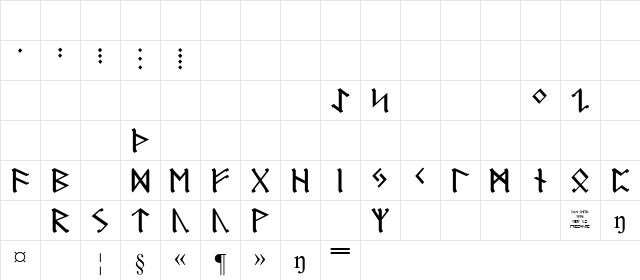
Germanic Runes Regular
Design Context for Germanic Runes
Germanic Runes is a composed and adaptable typeface that performs quietly and consistently across a wide range of design contexts.